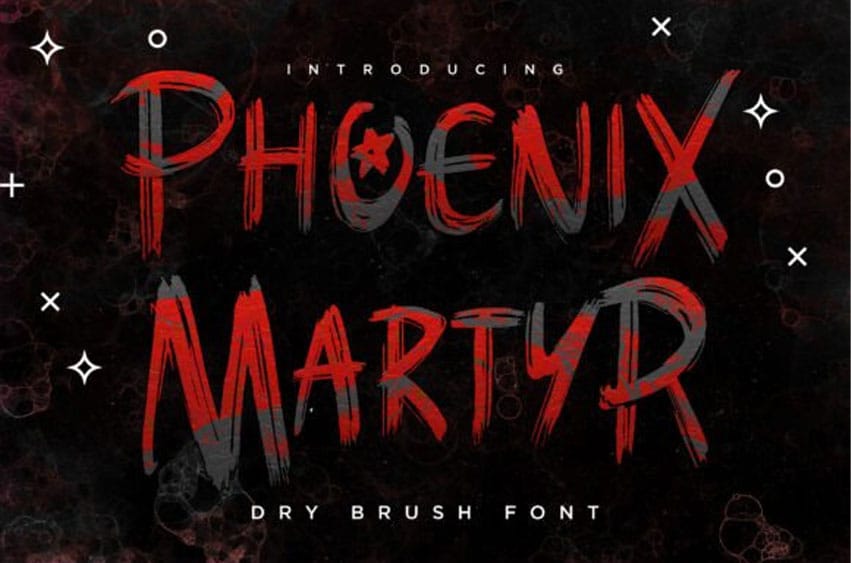
Phoenix Martyr Font is a fiery, dry brush font with a bold and rebellious soul. Featuring dramatic brush strokes and rugged letterforms, it radiates energy, defiance, and raw power.
Perfect for band logos, heavy metal posters, gaming titles, and streetwear designs, this font sets a striking tone that commands attention and ignites visual impact.